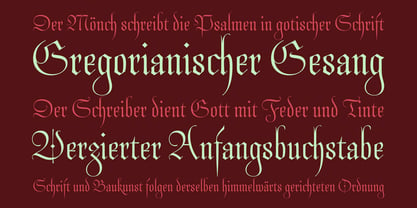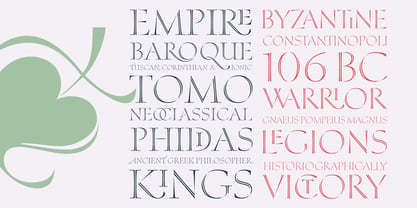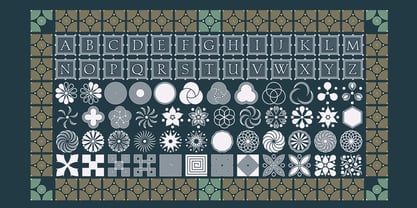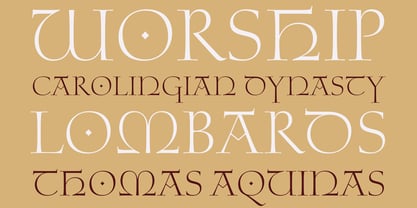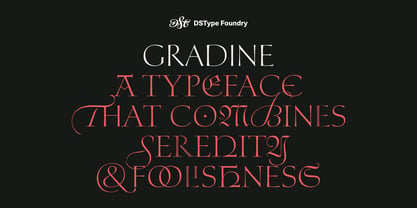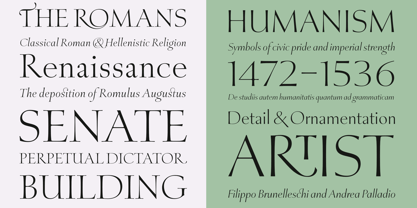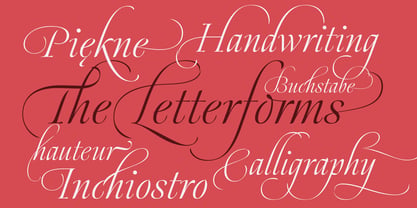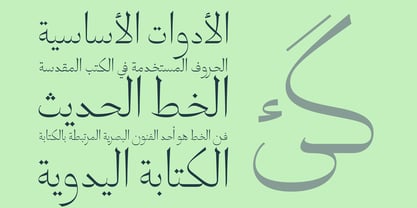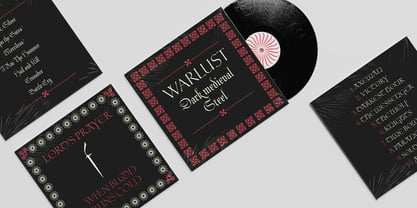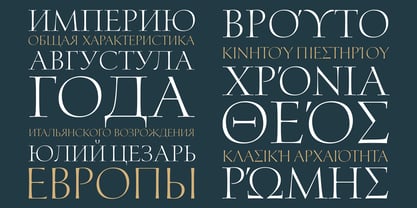
Gradine
A família de fontes Gradine foi desenhada por Dino dos Santos, Pedro Leal e publicada pela DSType. Gradine contém 15 estilos e opções de pacote familiar. Saiba mais sobre esta família
Rooted in the rich tradition of typography, Gradine stands as one of our most refined and ambitious type systems to date. Drawing inspiration from a single, foundational typographic skeleton, Gradine embarks on a journey through diverse stylistic territories—deliberately fluid, with no fixed destination. Beginning with the timeless elegance of classical Roman letterforms, Gradine expands outward, embracing the bold intricacies of Blackletter, the expressive flow of Script, and the clarity of Sans Serif. This dynamic exploration allows Gradine to transcend conventional boundaries, offering a versatile system that is both historically grounded and daringly contemporary. Available in Greek, Cyrillic, and Arabic for script-specific versions.